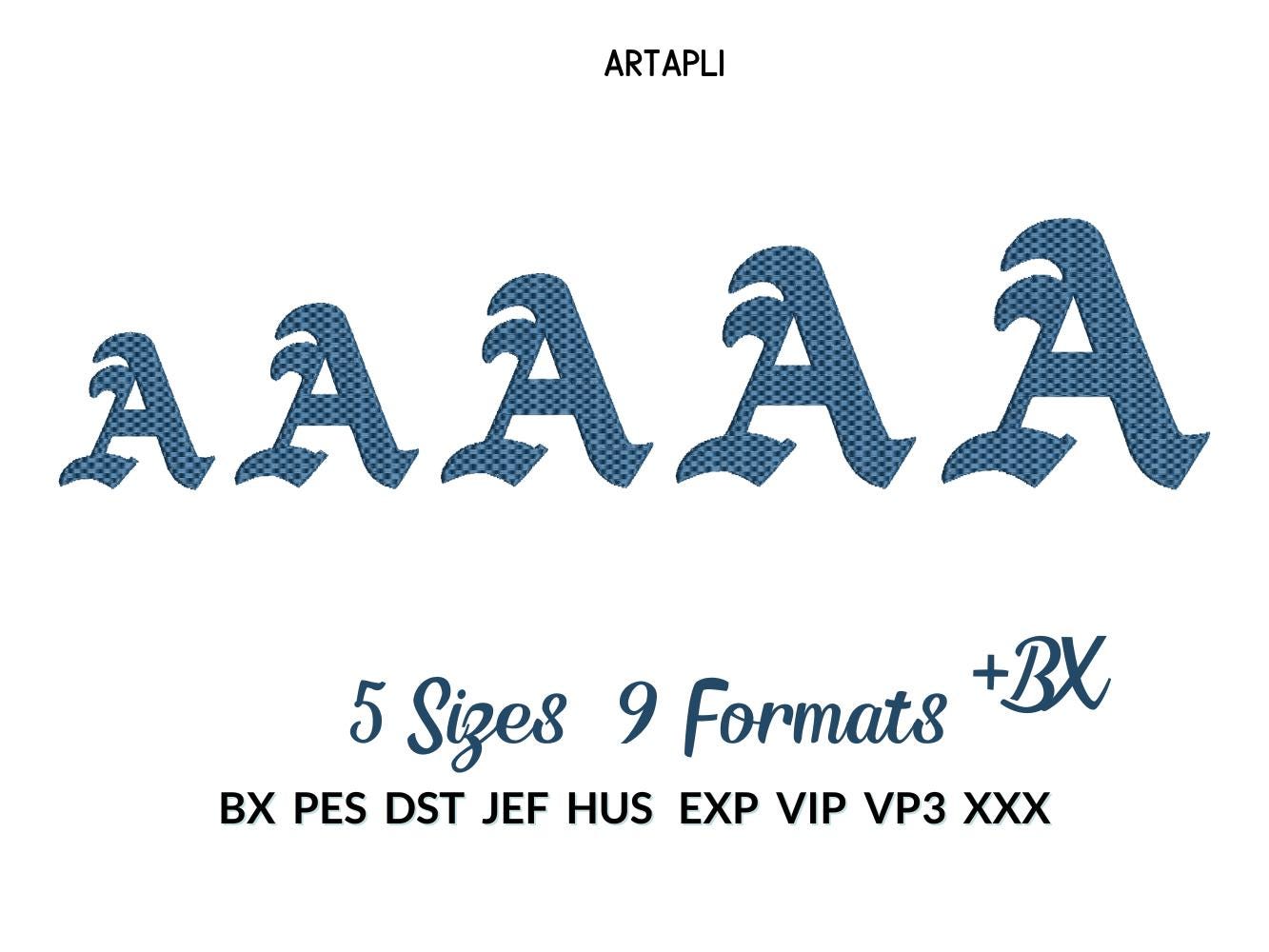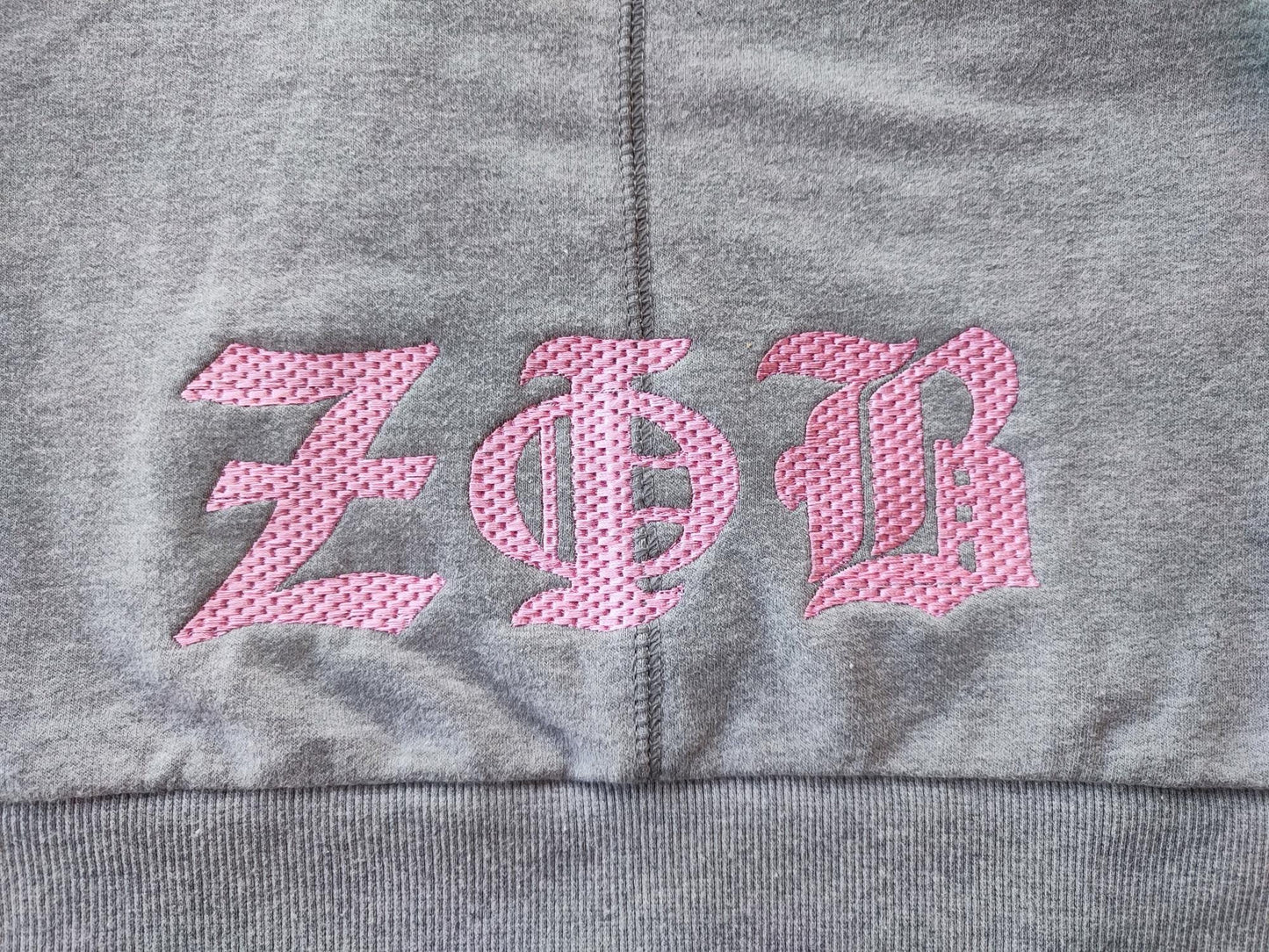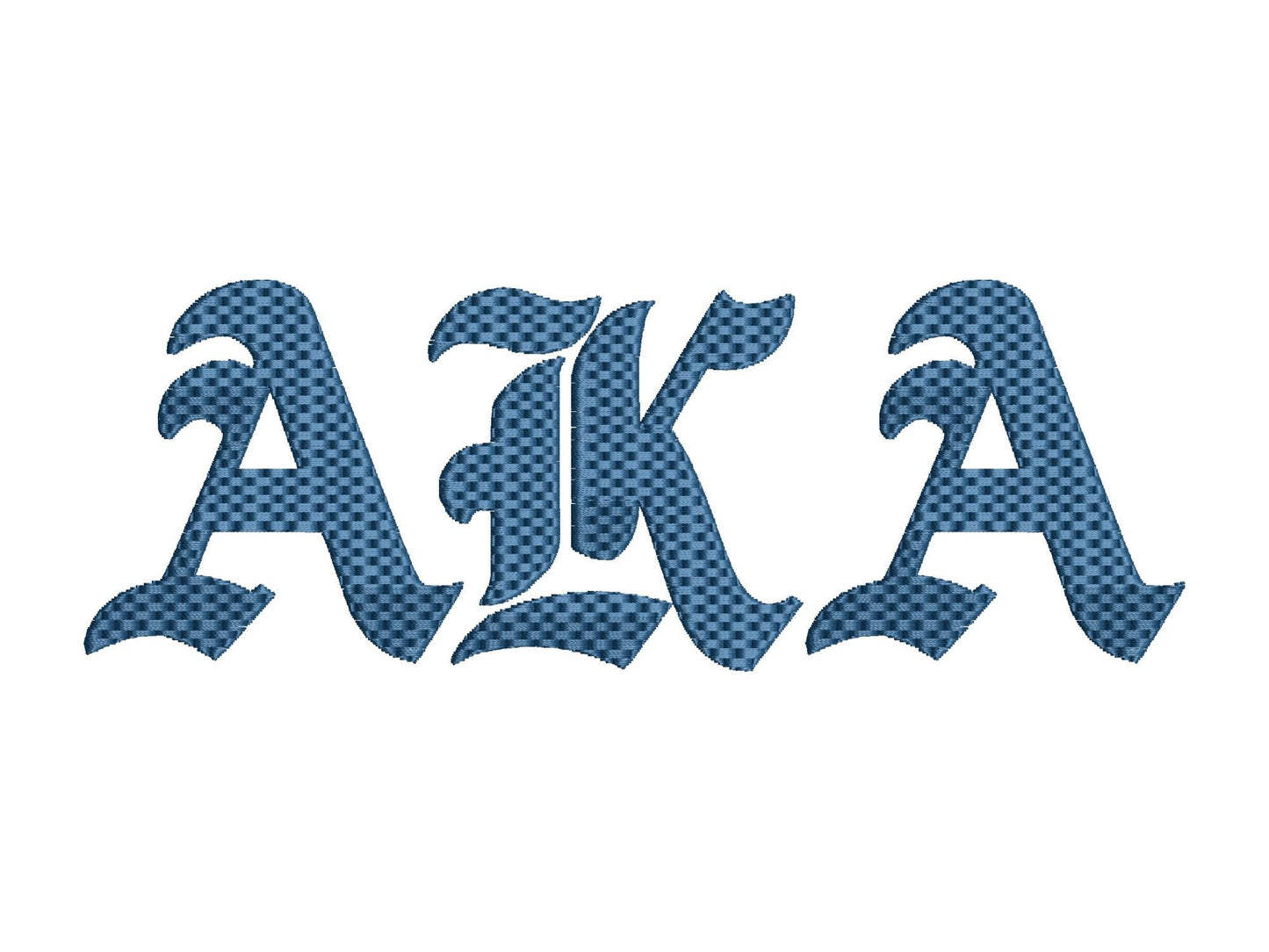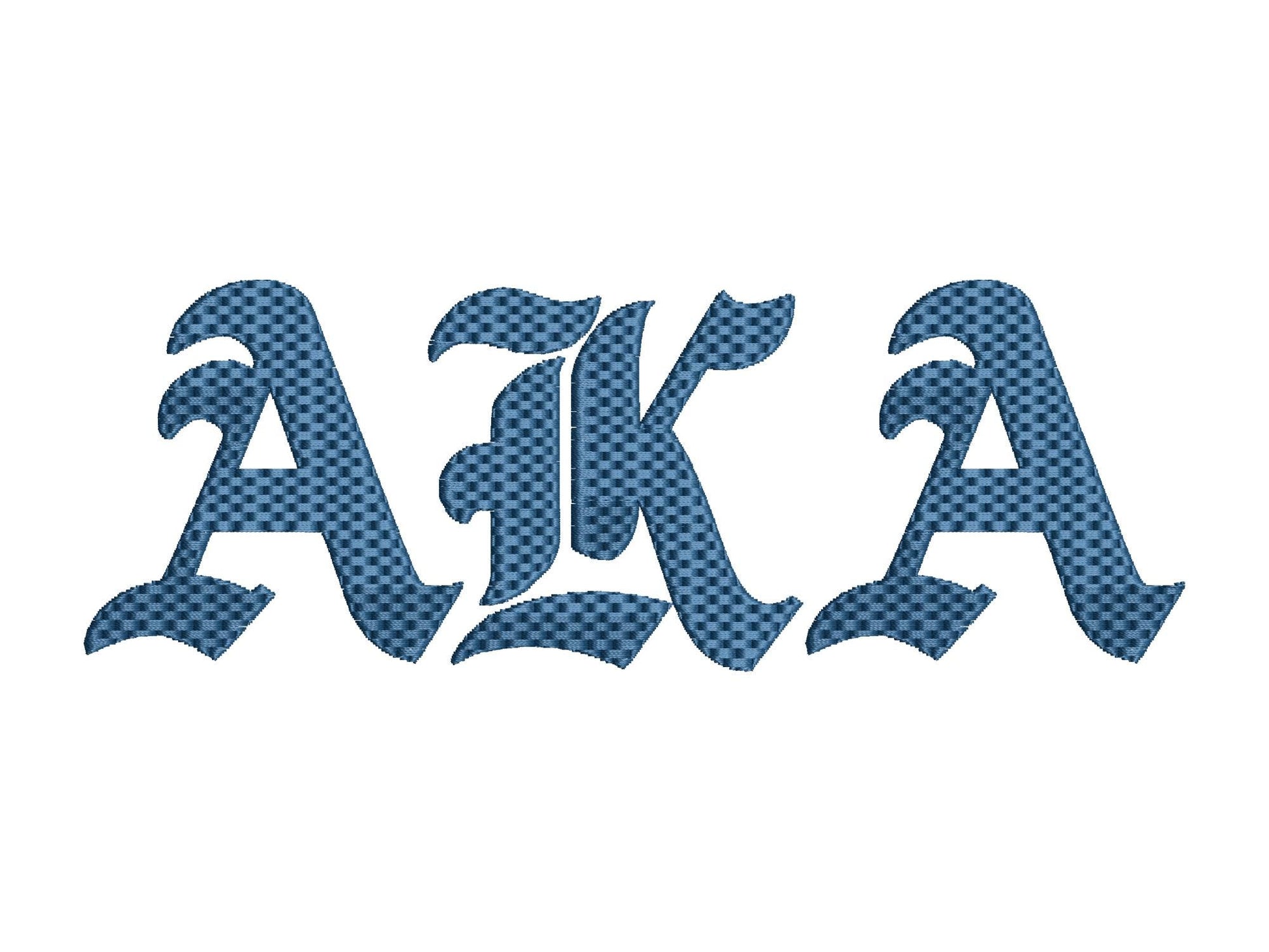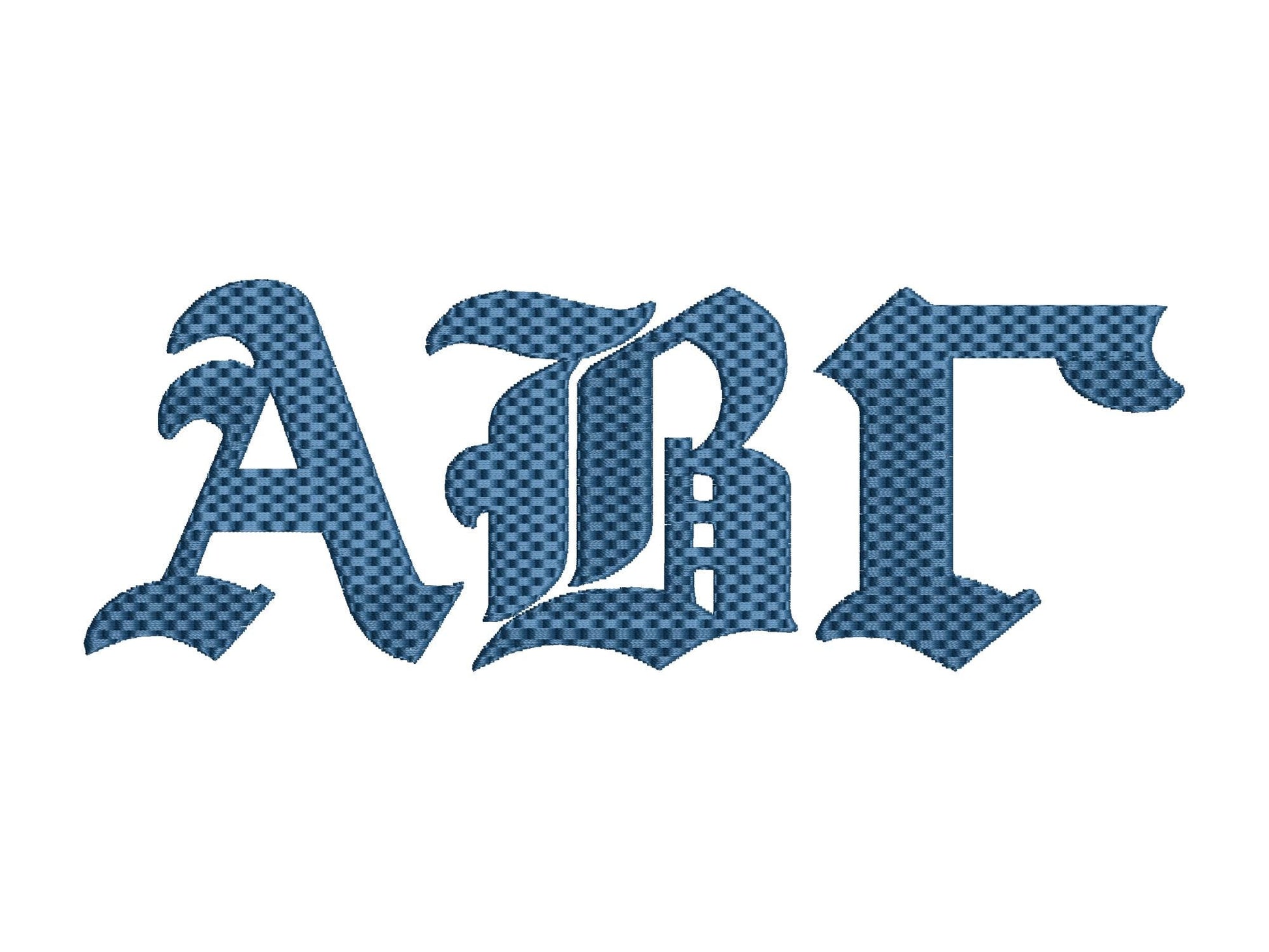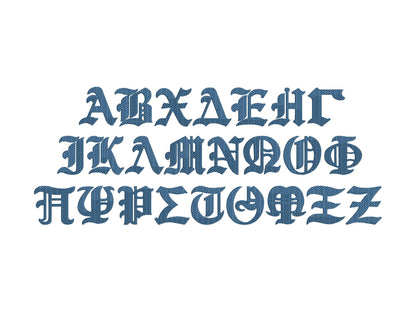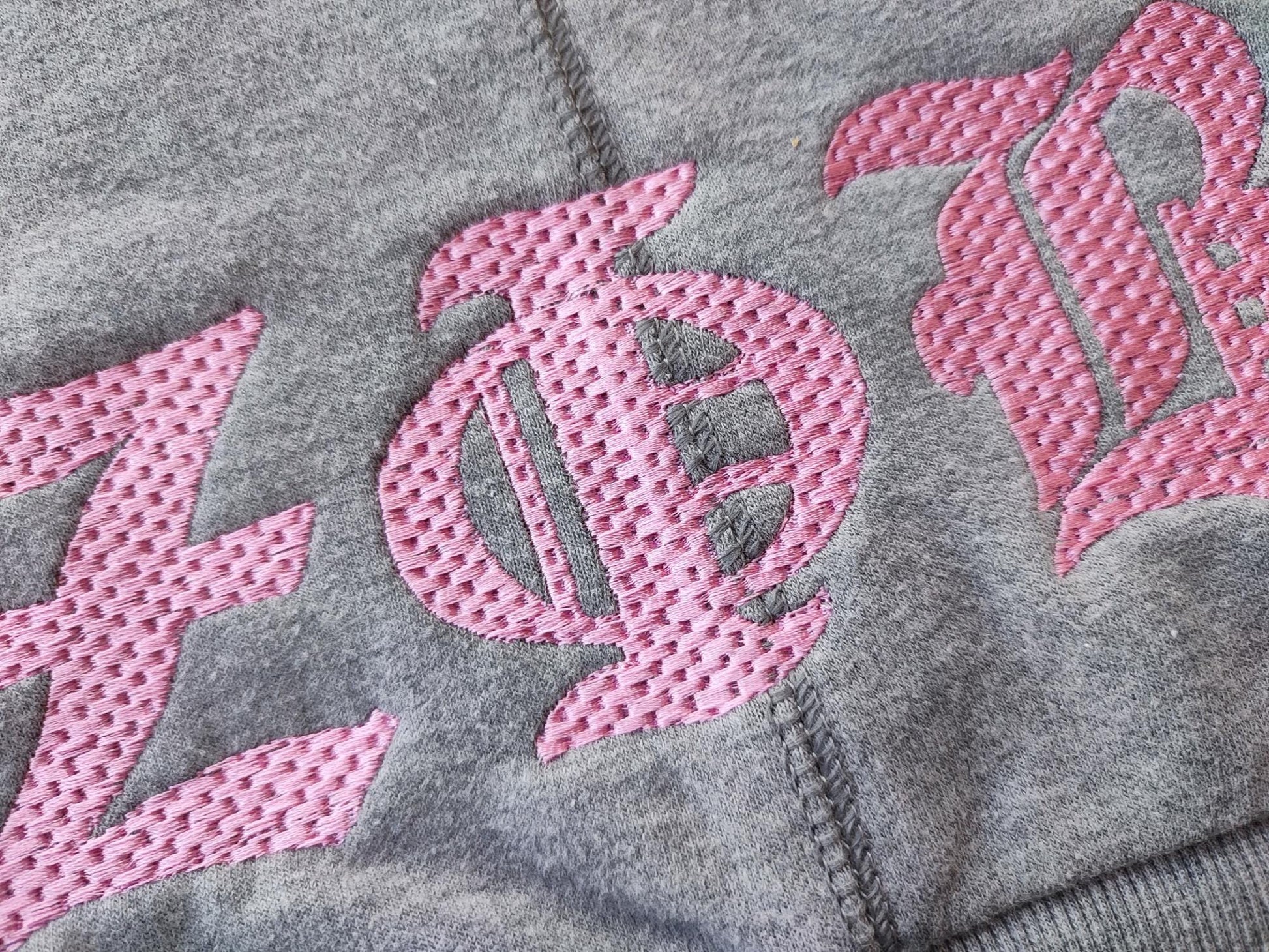
Old Style Textured Waffle Stitch Greek Font
All 24 Greek letters in five sizes: 2, 2.4, 2.8, 3.2 and 3.6 inches. Textured waffle stitch fill.
- 24 Greek letters, waffle stitch
- 5 sizes, 2 to 3.6 in